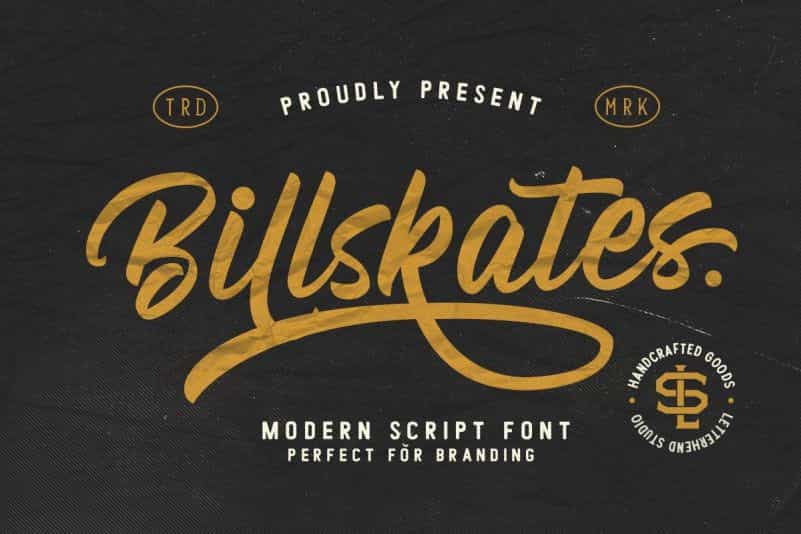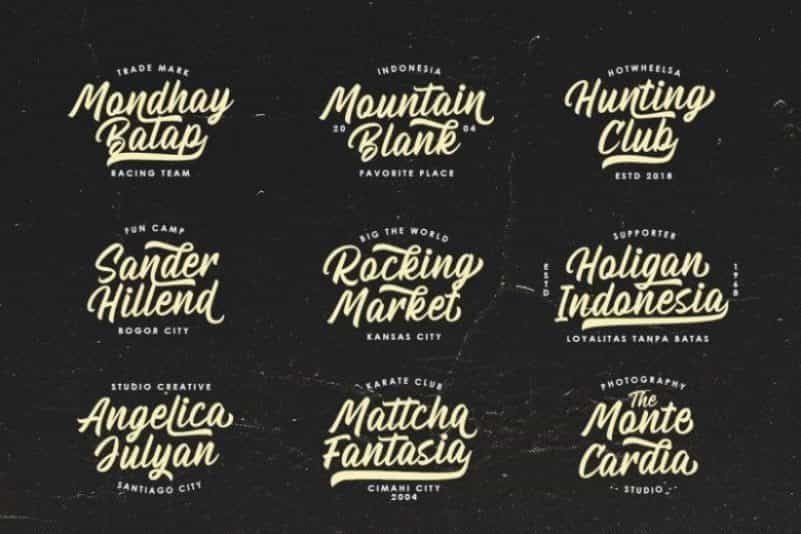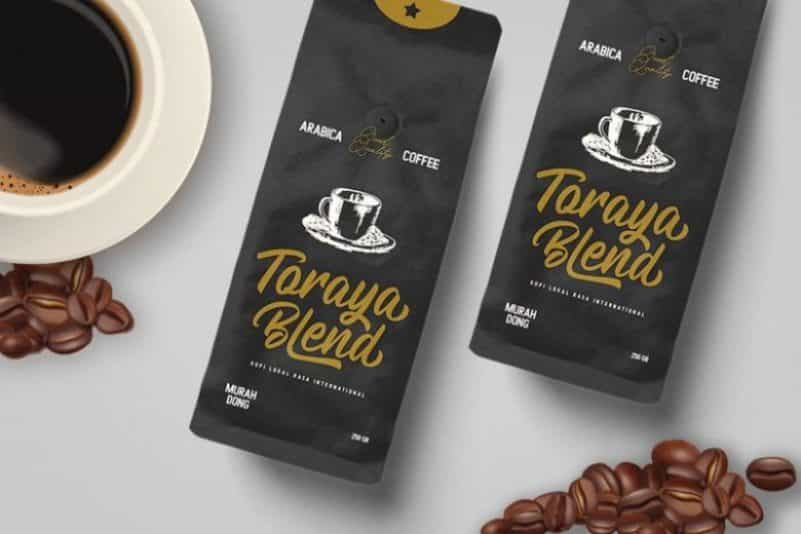
Introducing Billskates Font. This font is ideal to be used particularly in logo and the other various official styles like invitations, logos, magazines, books, greeting/wedding cards, packaging, fashion, make up, stationery, novels, labels or any sort of advertising.